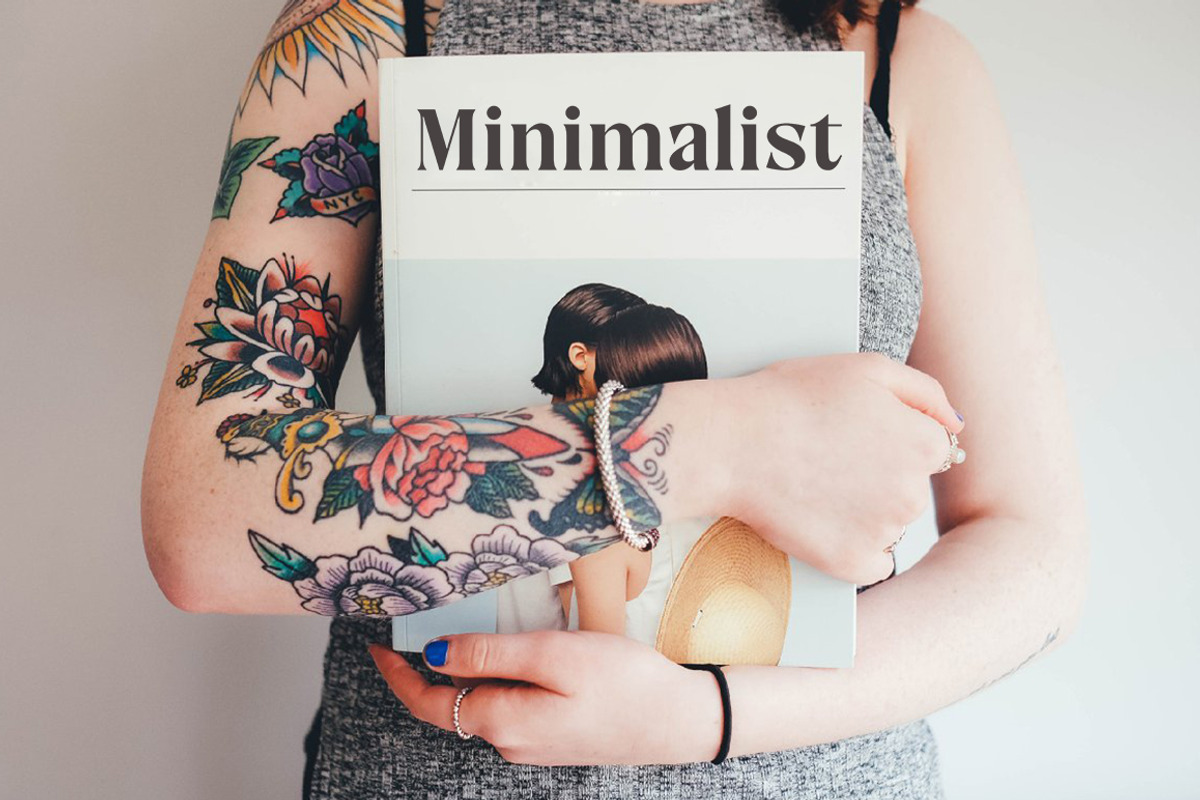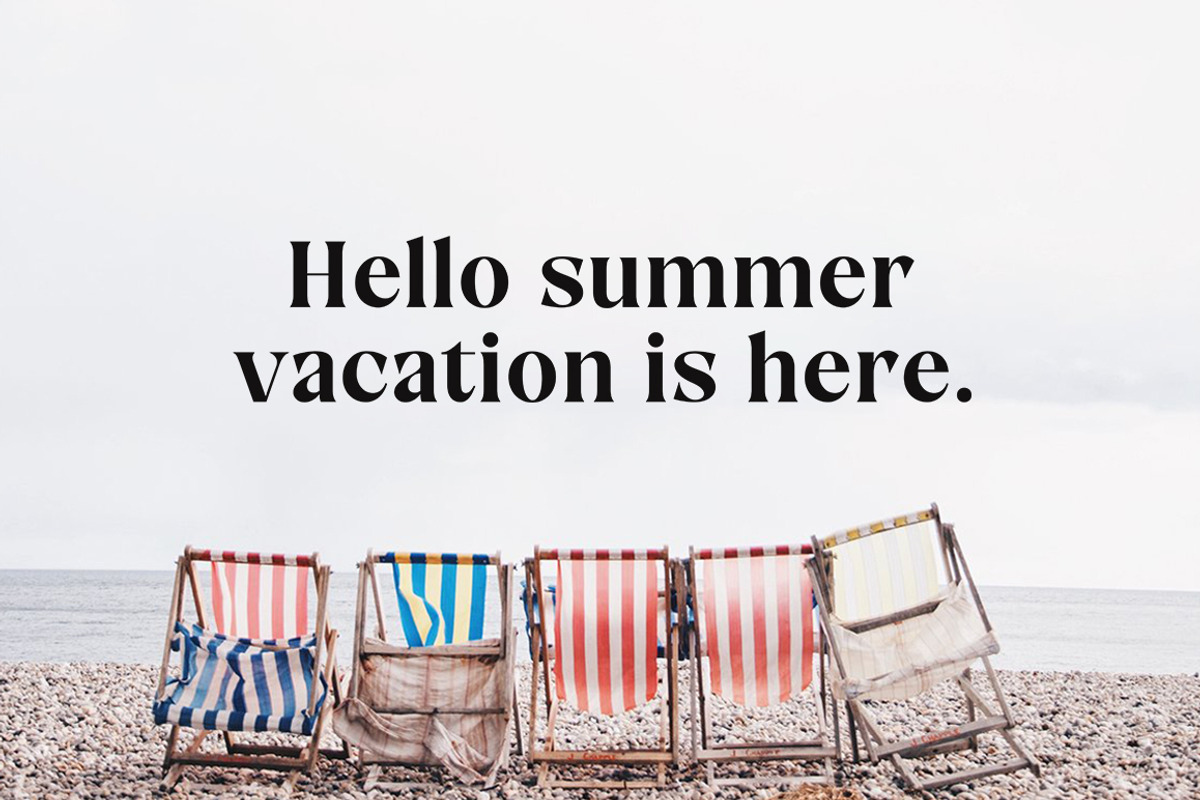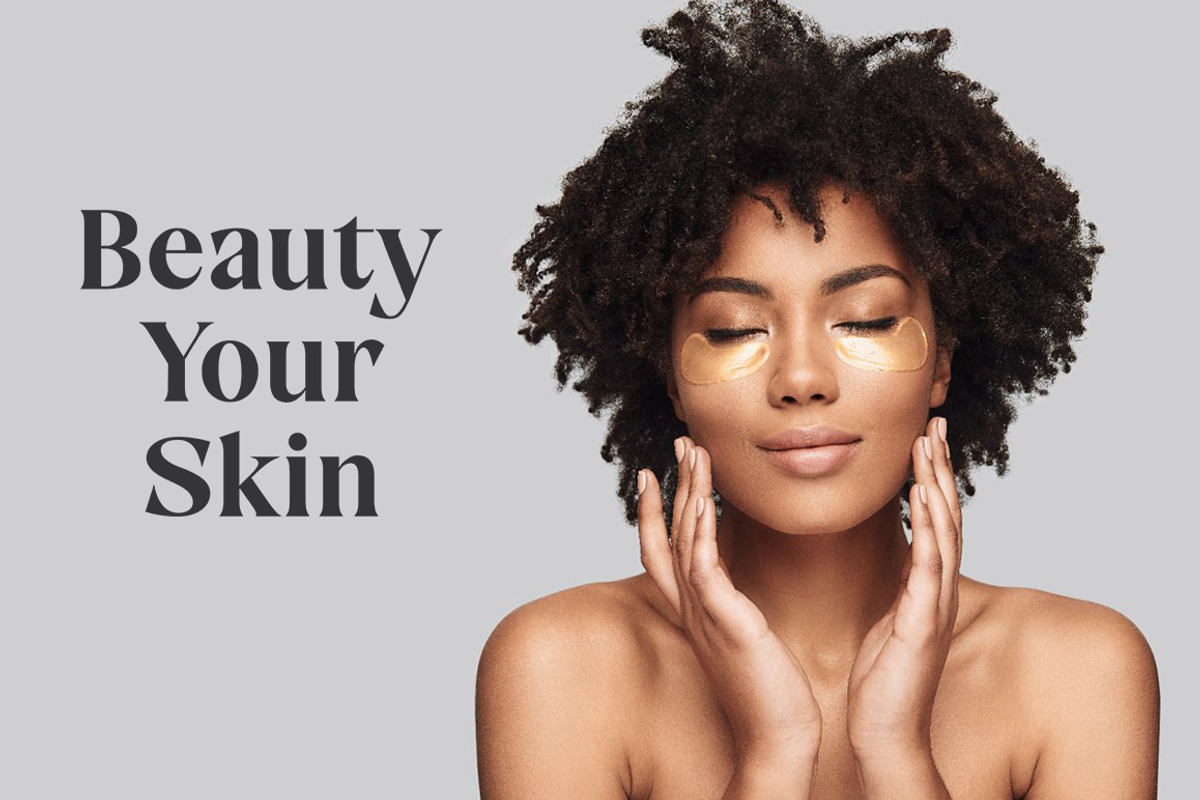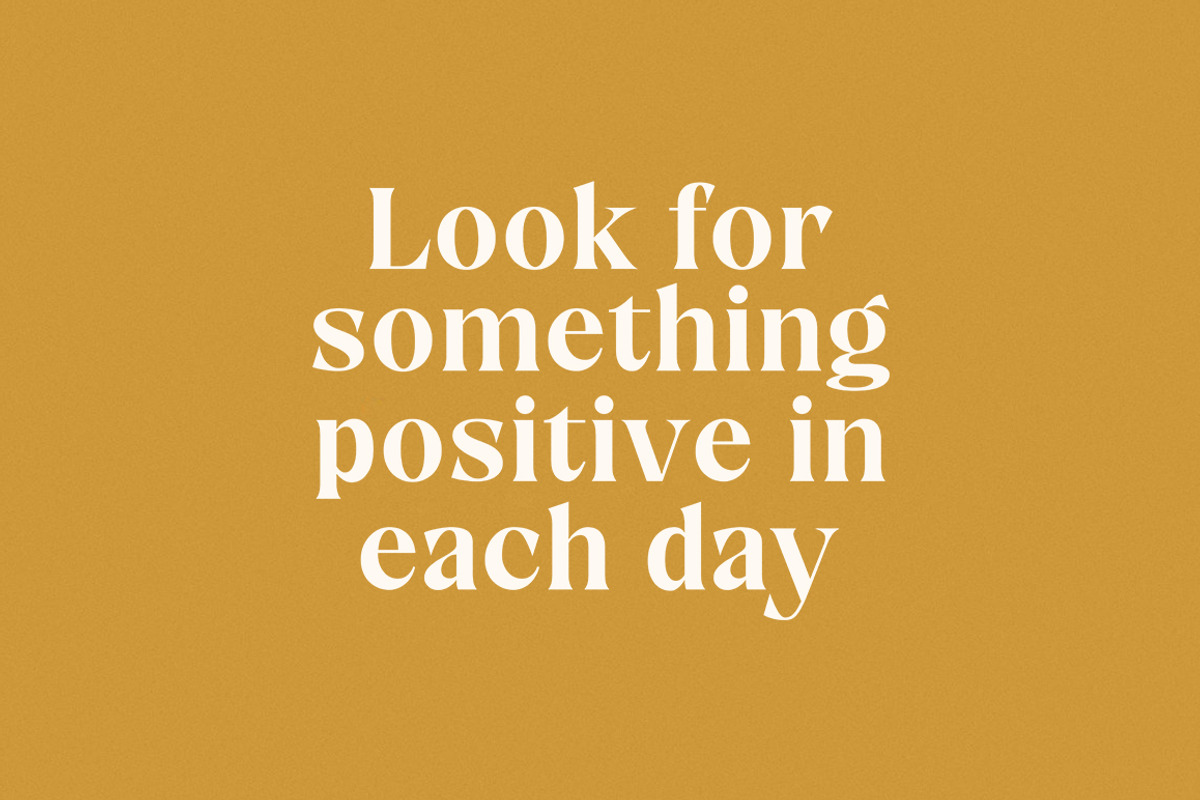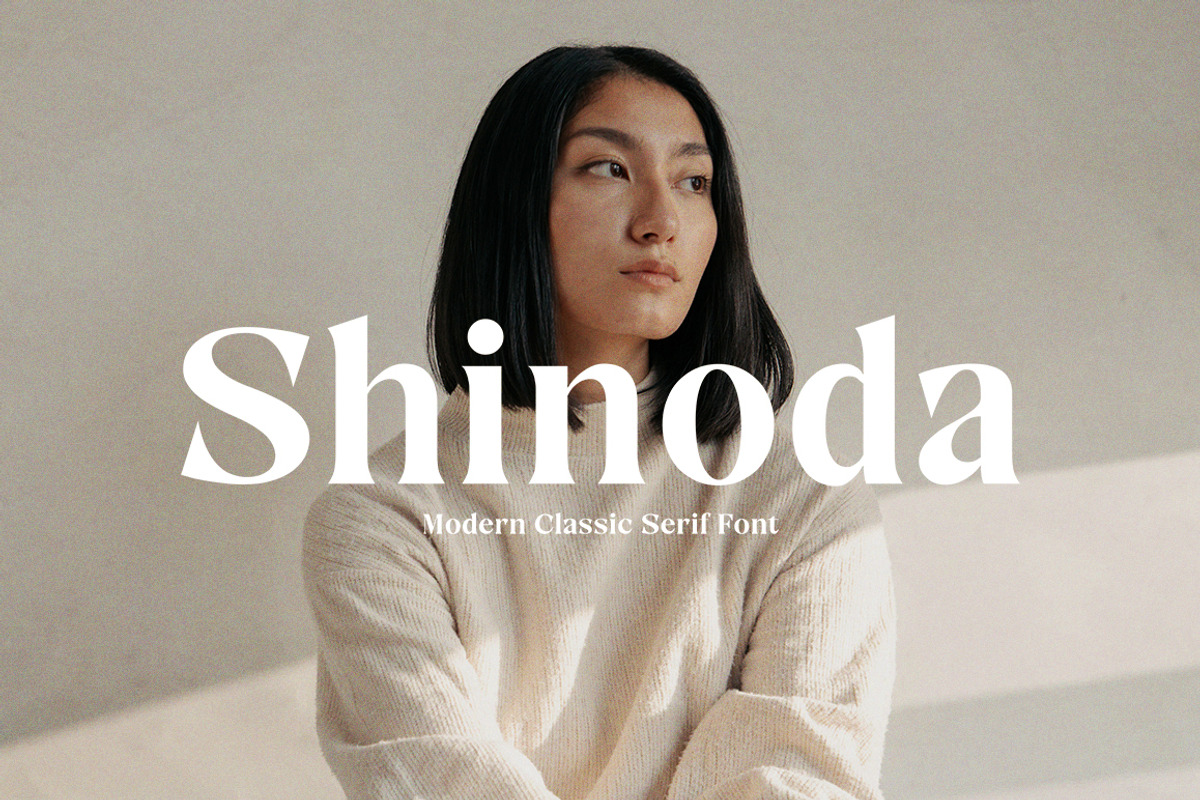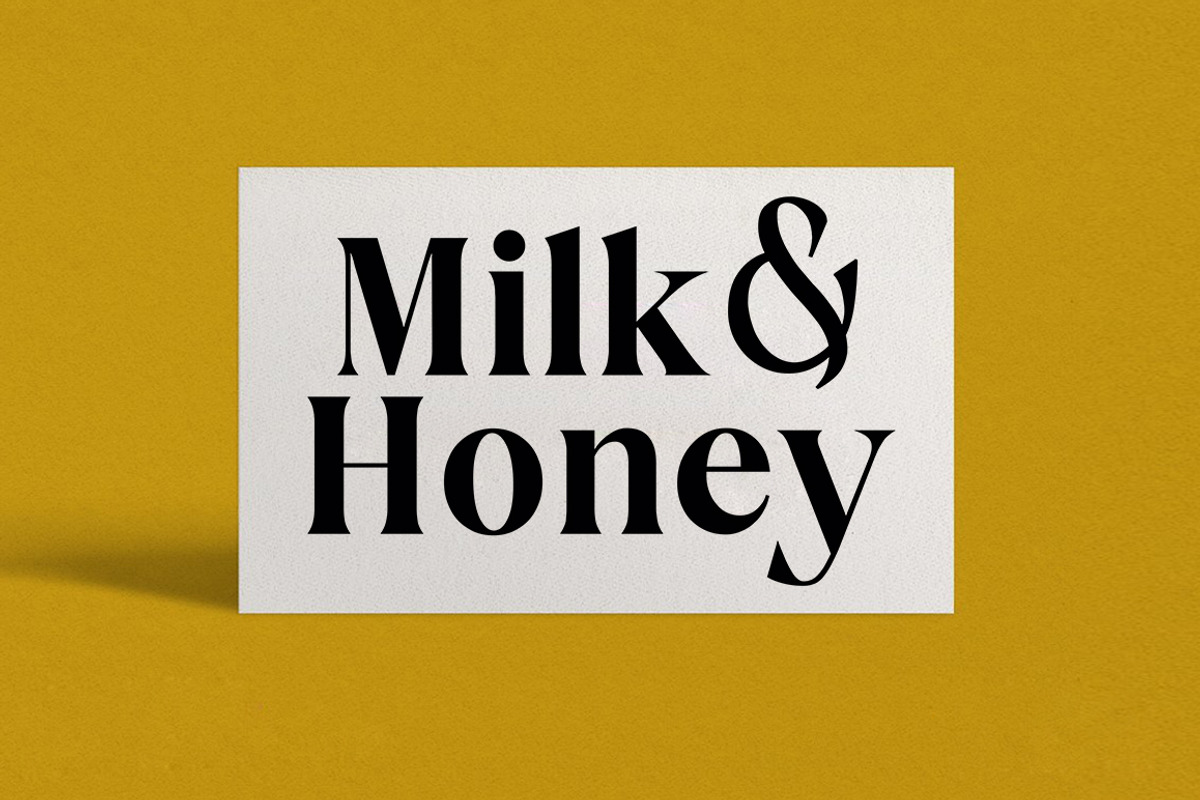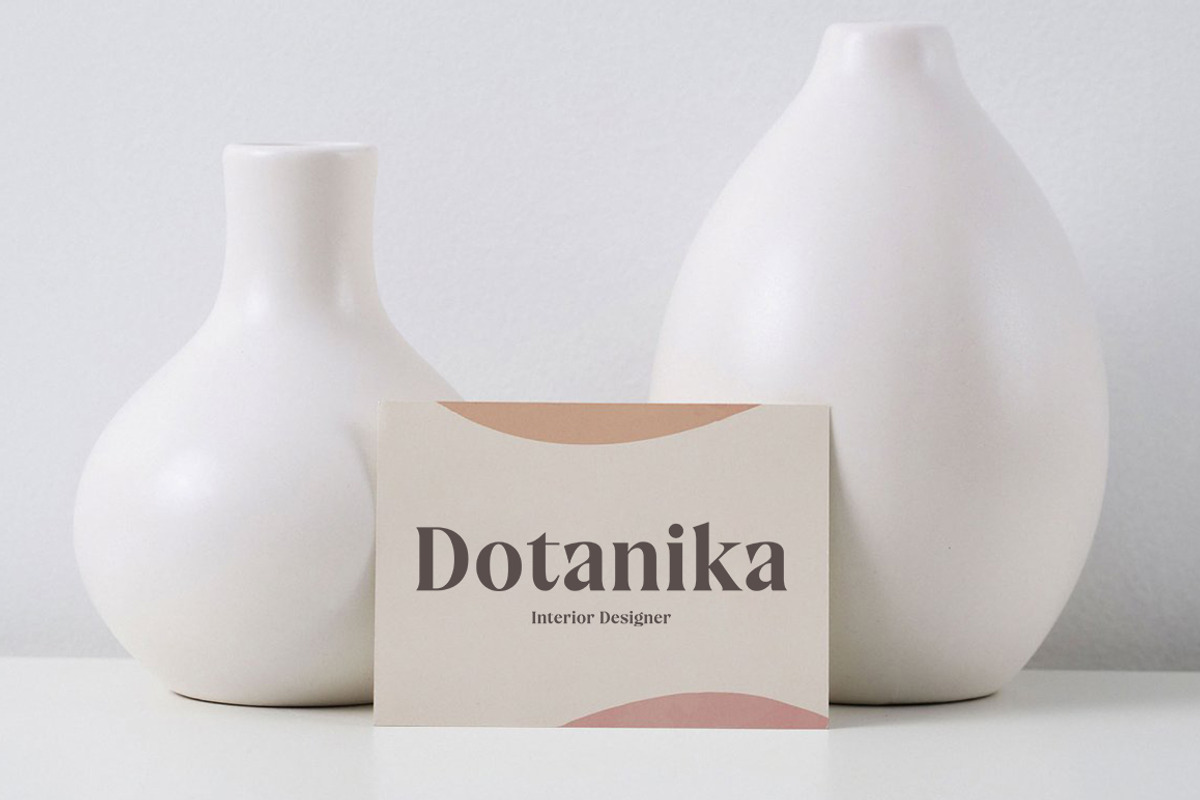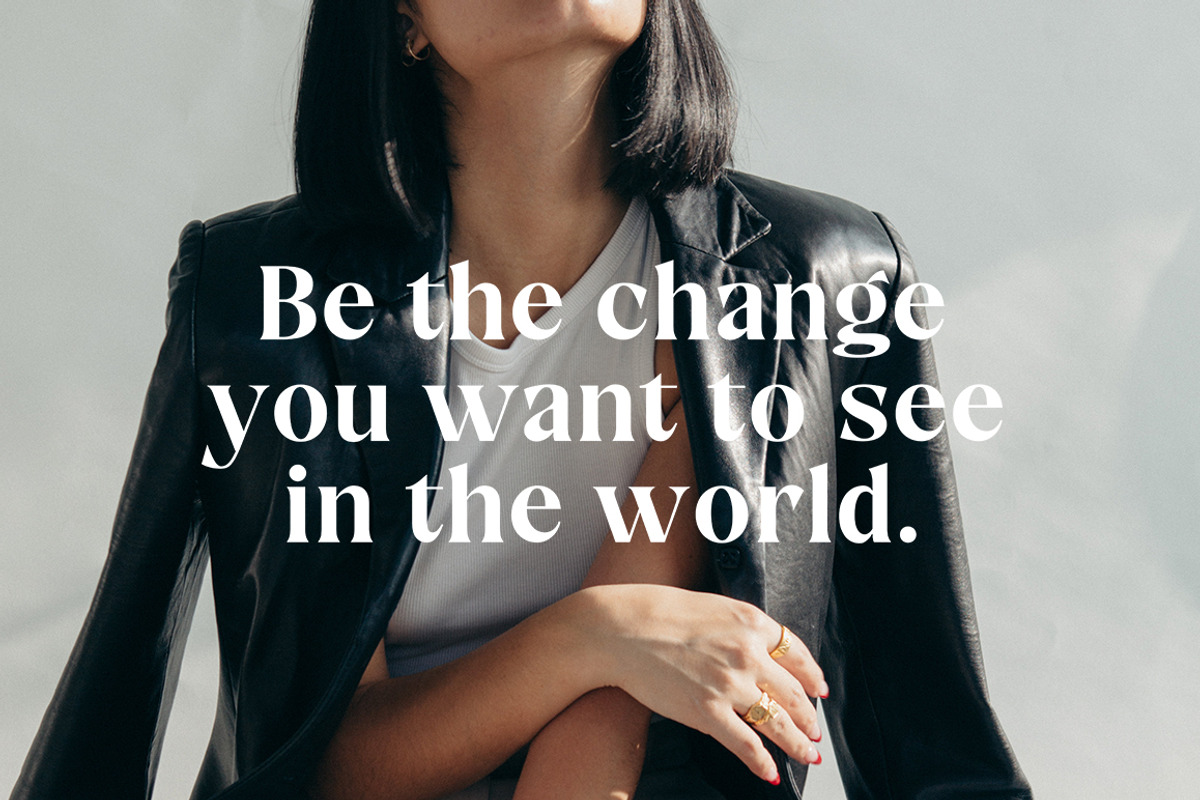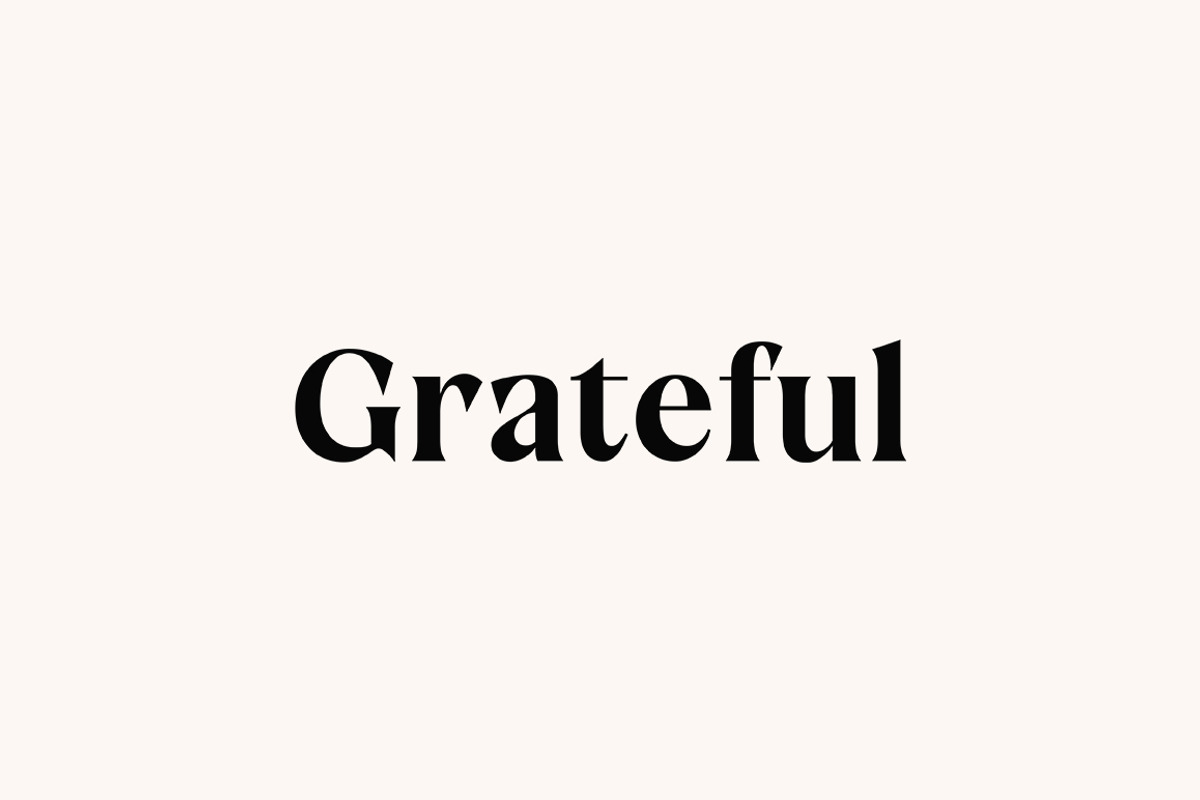
Shinoda | Classic Modern Serif
Introducing the new Shinoda Modern Serif!!! Shinoda is a elegant and classy serif typeface – This font is both modern and nostalgic and works great for logos, magazine, social media. Already matched up and ready to be used together for your next design! For those of you who are needing a touch of elegant, stylish, classy, chic and modernity for your designs, this font was created for you!